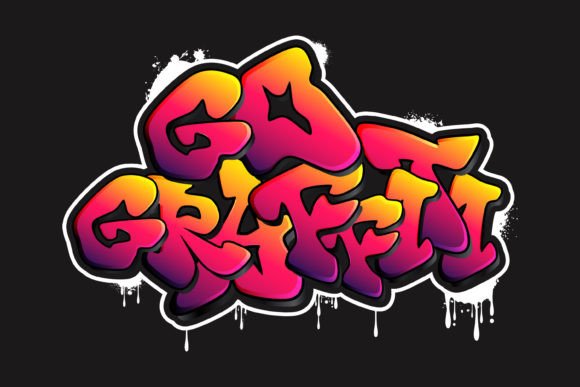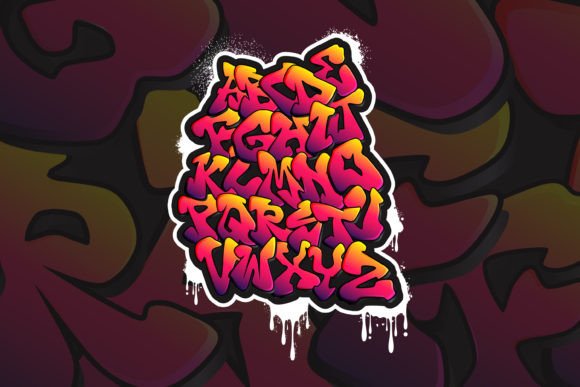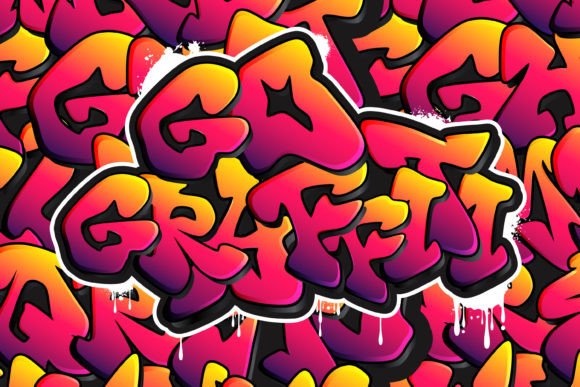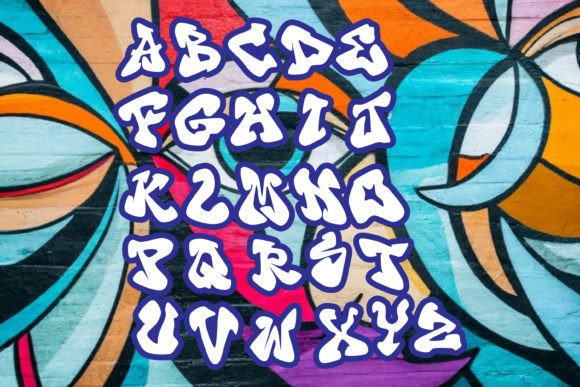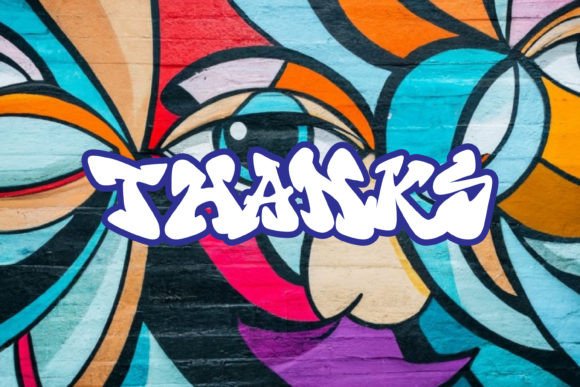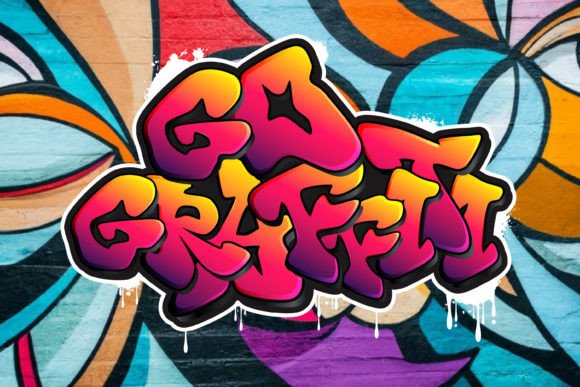
Unleash Your Creativity with Go Graffiti Font: Explore the Edgy World of Urban Typography
Welcome to the vibrant and dynamic world of graffiti fonts, where creativity knows no bounds and self-expression reigns supreme. If you’re a designer, artist, or crafty individual looking to add an edgy touch to your projects, you’ve come to the right place. Go Graffiti Font is your gateway to a vast collection of bold, daring, and intricate fonts that will elevate your designs and make them stand out from the crowd.
The Art of Graffiti Fonts
Graffiti fonts are more than just a style of typography; they’re a form of urban art that has been shaped by the streets, culture, and creativity of the city. Born out of the streets of New York City in the 1970s, graffiti art has evolved into a global phenomenon, with its own unique language, symbols, and aesthetics. Graffiti fonts reflect this rich history, with their bold lines, vibrant colors, and eclectic mix of letters and symbols.
Exploring the Collection: Features and Benefits
Our extensive collection of graffiti fonts offers a diverse range of styles, from classic urban scripts to modern, abstract designs. Whether you’re working on a street art project, a graphic design, or a crafty DIY project, you’ll find the perfect font to match your vision. Here are some key features and benefits of our Go Graffiti Font collection:
- Bold and Edgy Designs: Our graffiti fonts are designed to make a statement, with bold lines, sharp edges, and a raw, urban feel.
- Intricate Details: From intricate patterns to detailed lettering, our fonts are crafted to add depth and texture to your designs.
- Variety of Styles: Our collection features a wide range of graffiti fonts, from classic scripts to modern, abstract designs.
Tips and Tricks for Using Graffiti Fonts
Graffiti fonts can add a bold, edgy touch to your designs, but they can also be intimidating to work with. Here are some tips and tricks to help you get the most out of our Go Graffiti Font collection:
- Experiment with Colors: Graffiti fonts are all about bold colors and vibrant hues. Don’t be afraid to experiment with different color schemes to find the perfect match for your design.
- Mix and Match: Combine different graffiti fonts to create a unique, eclectic look that’s all your own.
- Pay Attention to Legibility: While graffiti fonts are often bold and edgy, they can also be difficult to read. Make sure to choose a font that’s legible and easy to understand.
- Add Texture and Patterns: Graffiti fonts are all about texture and patterns. Add some extra visual interest to your design by incorporating textures, patterns, and other design elements.
| Font Name | Go Graffiti Font |
| Author | Boy William |
Go Graffiti Font is your ultimate destination for the best graffiti fonts, featuring a vast collection of bold, edgy, and intricate designs. Whether you’re a designer, artist, or crafty individual, our fonts will help you add an urban touch to your projects and make them stand out from the crowd. So why wait? Explore our collection today and unleash your creativity with the power of graffiti fonts!